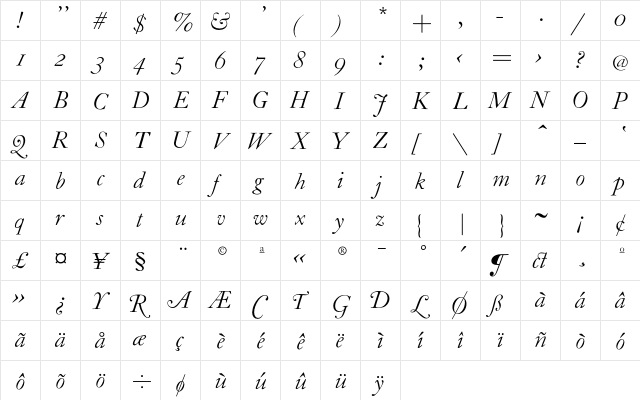
CaslonHW-Italic Regular
Design Context for CaslonHW-Italic Typeface
CaslonHW-Italic offers clean, dependable letterforms without strong stylistic allegiance, making it a practical choice for designers who need flexibility. Its italic angle brings a sense of urgency and motion to the letterforms.
Pro Tip: Try CaslonHW-Italic for annotation and caption copy alongside an upright companion — the contrast in angle creates a dynamic but ordered typographic system.